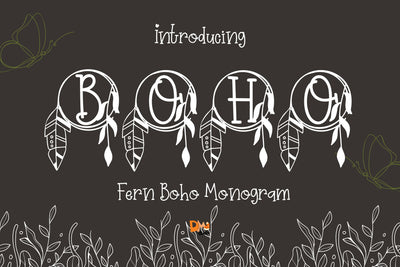
Fern Boho Monogram
Fern Boho Monogram – Hand-Drawn Serif Monogram Font with Fern Leaf Accents
Fern Boho Monogram is a serene and earthy serif monogram font, featuring uppercase letters adorned with graceful fern leaf illustrations. Inspired by wild nature and bohemian elegance, this font is perfect for wedding monograms, rustic branding, Cricut crafts, and handmade product packaging.
Fern Leaf Embellishments: Each letter is beautifully enhanced with hand-drawn ferns that radiate organic charm.
Bohemian Serif Style: Combines structure with softness for a natural yet refined look.
Perfectly Balanced Layout: Great for monograms, logos, stationery, and decorative initials.
Ideal For: Wedding invitations, Cricut name projects, boutique branding, botanical logos, gift tags, and seasonal packaging.